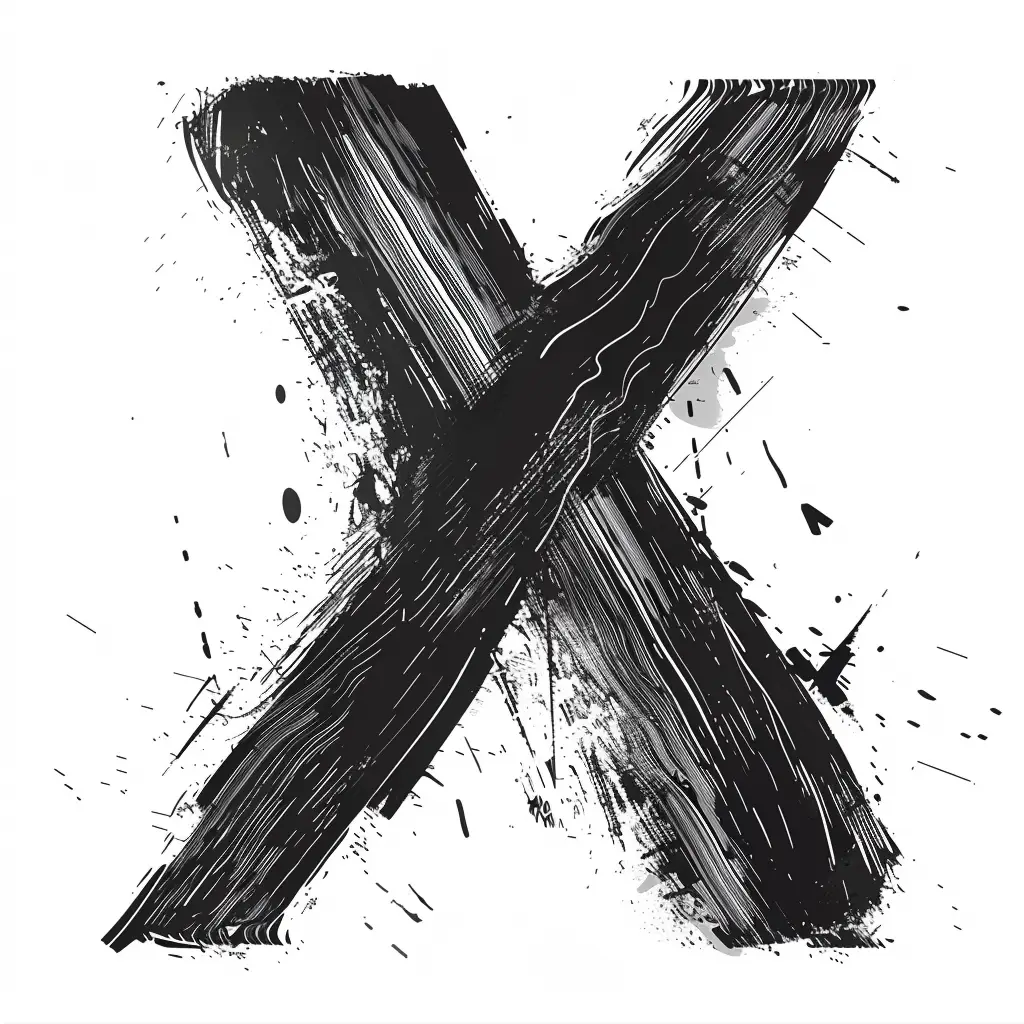
The image features a bold, black, hand-drawn letter "X" with a rough, textured brushstroke style, set against a clean white background. The "X" is marked by visible brush lines, splatters, and scattered ink droplets, creating a dynamic, artistic, and slightly chaotic visual effect.